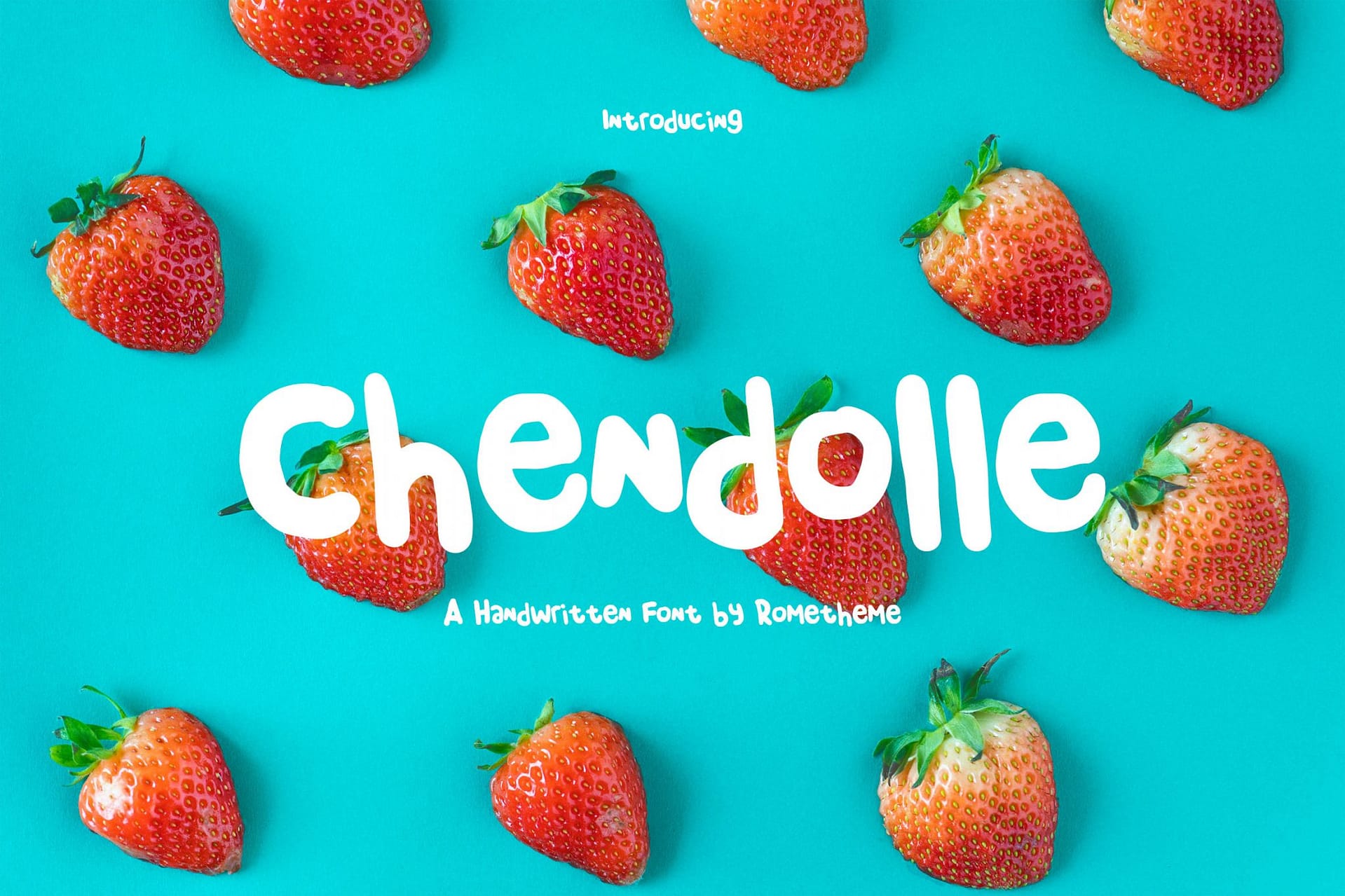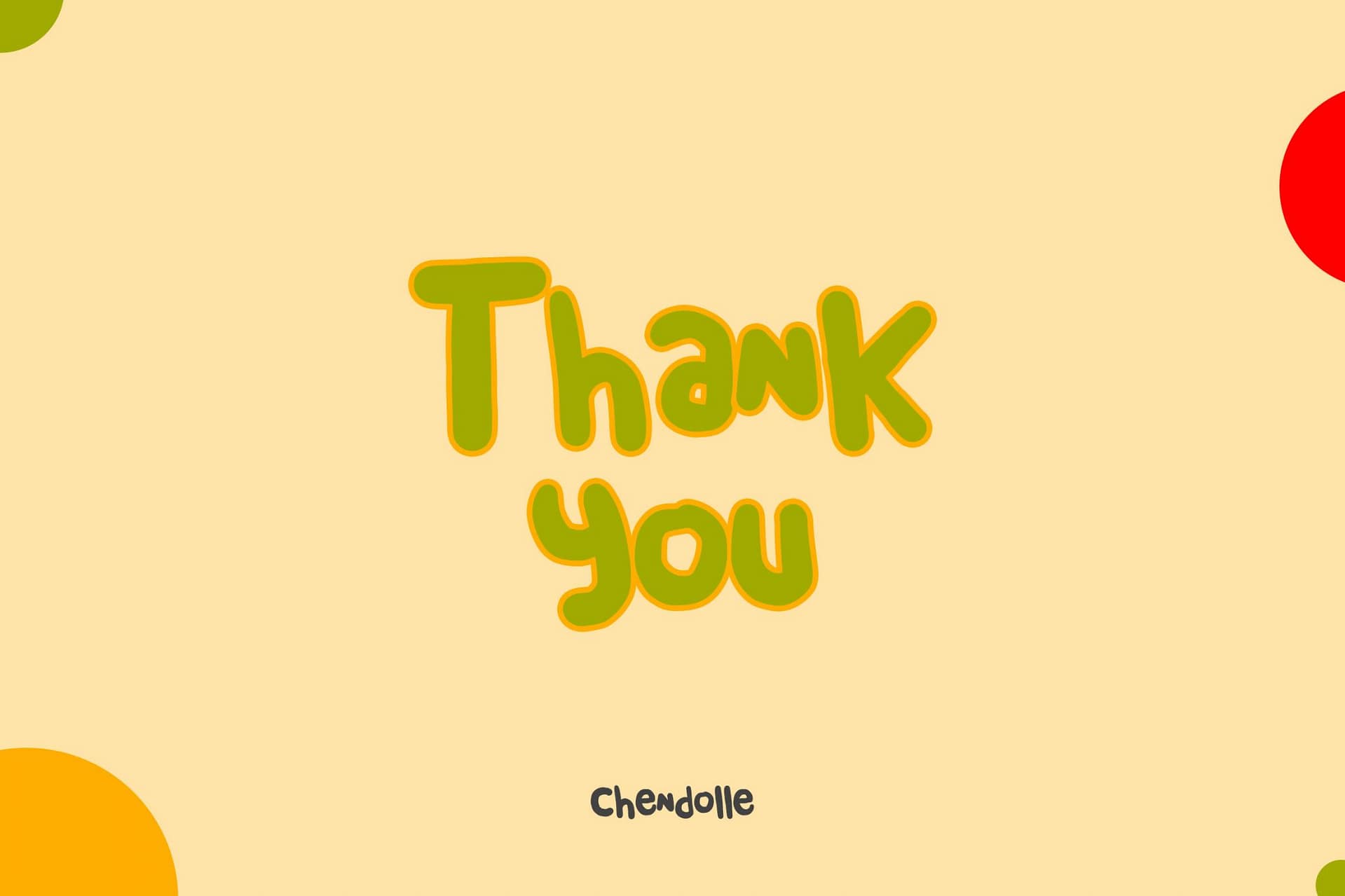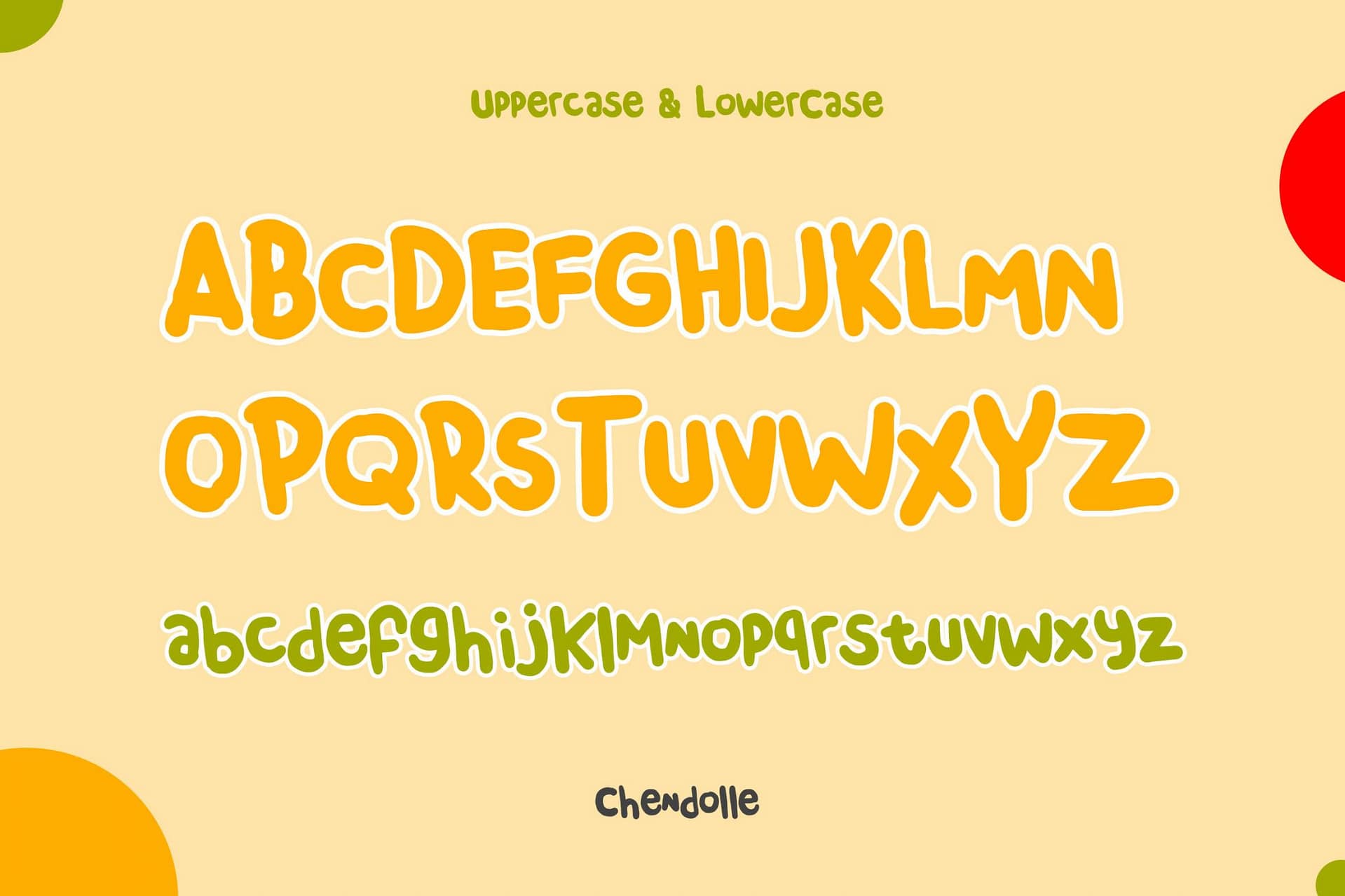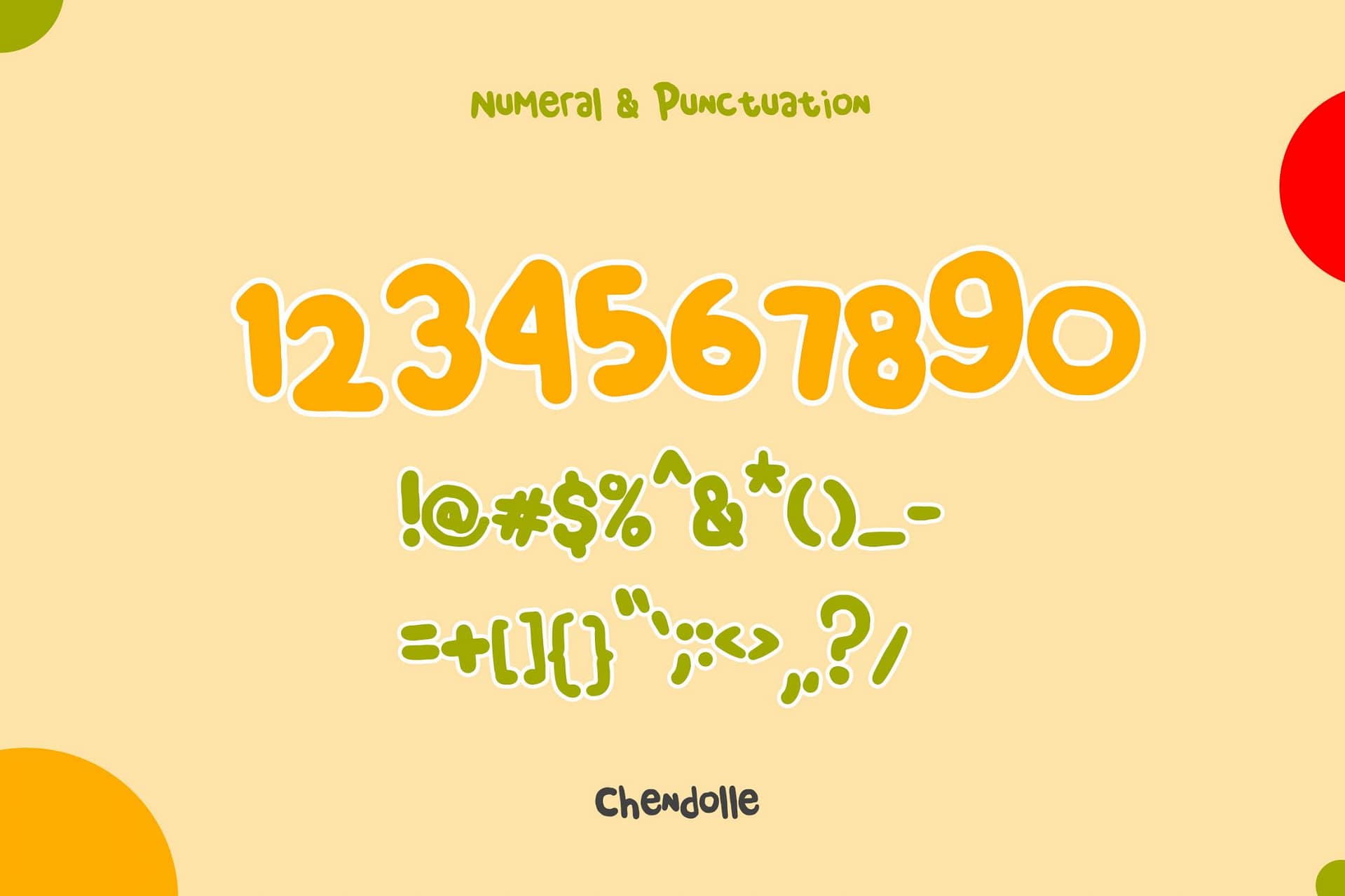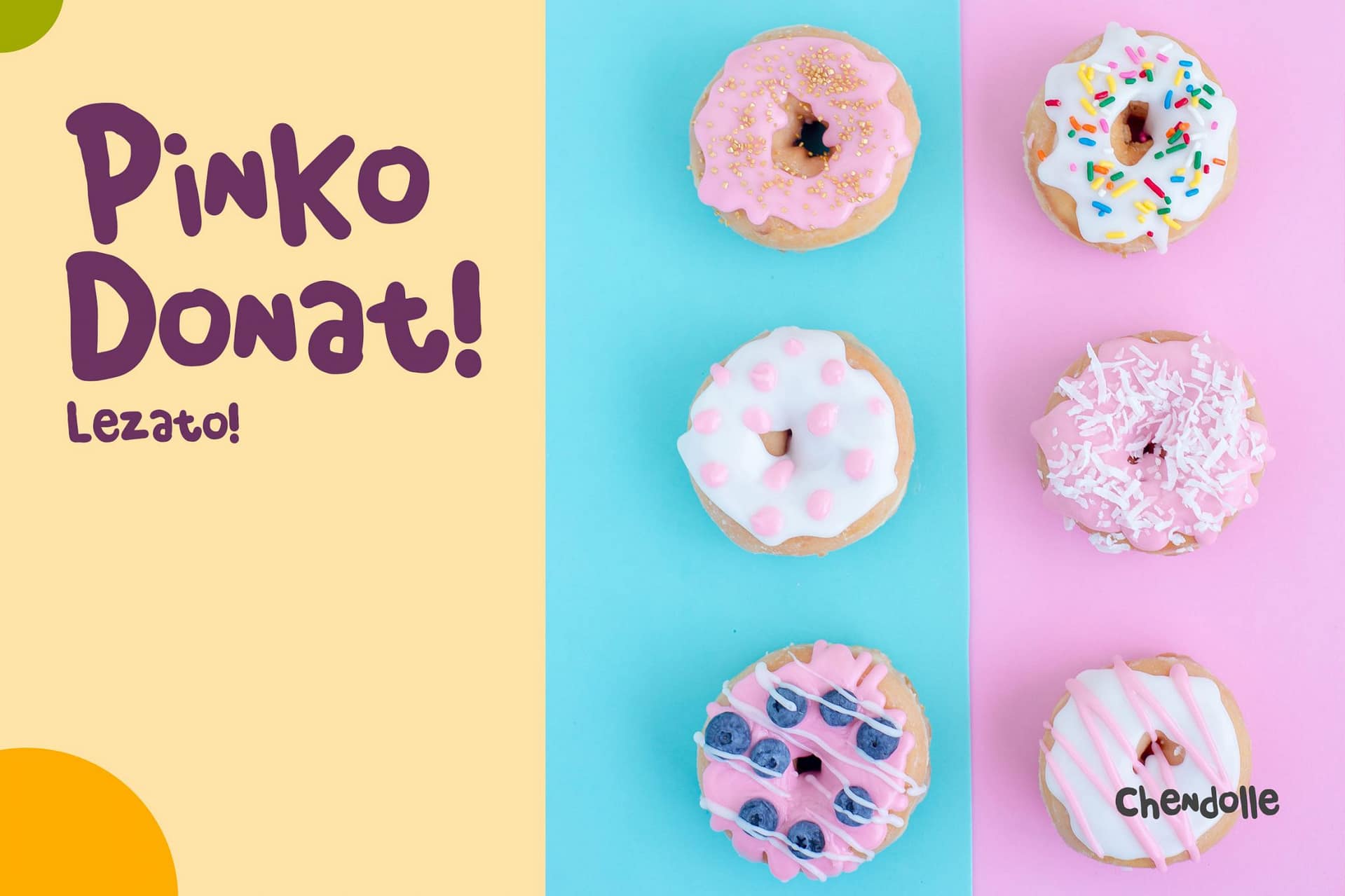
Chendolle is a playful and cheerful handwritten font by Rometheme that radiates charm and warmth. Its rounded, hand-drawn style makes it perfect for adding a friendly and approachable vibe to any design. Ideal for projects with a fun or casual theme, this font brings a unique personality to your creative work.
Key Features:
- Playful Handwritten Style: Features rounded, organic strokes that give a fun and natural look.
- Friendly Aesthetic: Perfect for designs that need a personal and inviting touch.
- Versatile Applications:
- Product packaging
- Childrenโs books and illustrations
- Social media posts
- Greeting cards
- Event invitations
- Optimized Readability: Clear and easy-to-read letters suitable for both digital and print designs.
Ideal For:
- Graphic designers creating lighthearted or whimsical projects.
- Brands in the food, fashion, or lifestyle industries targeting younger or family-oriented audiences.
- Personal projects like DIY crafts, scrapbooking, or invitations.
Applications:
- Product Packaging: Ideal for snacks, beverages, or handmade goods.
- Social Media: Adds a playful tone to Instagram captions, stories, or posts.
- Childrenโs Content: Perfect for books, activity sheets, or educational materials.
- Event Materials: Great for birthday invitations, baby showers, or family events.
- Merchandise: Adds a fun vibe to t-shirts, mugs, or stickers.
Chendolle is the perfect choice for creating designs that exude friendliness and playfulness. Whether you’re crafting designs for kids, promoting a cheerful brand, or simply looking for a font that feels approachable, Chendolle delivers charm and versatility in every project.